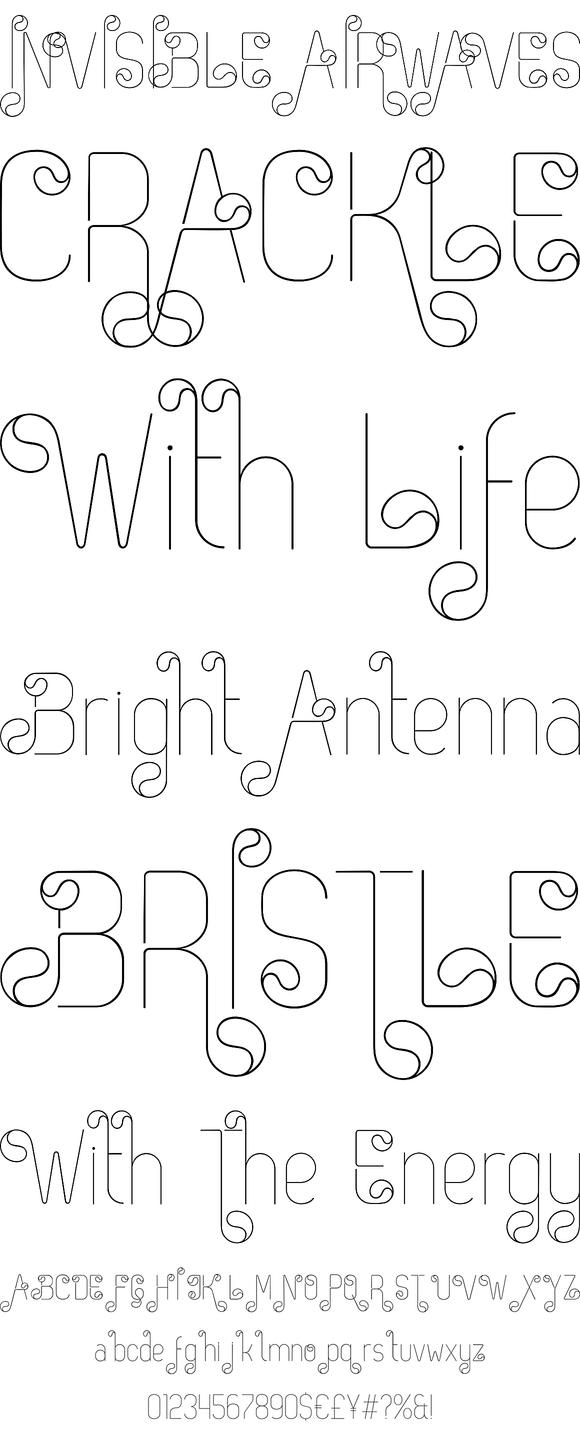
Zag is a geometric sans serif inspired by the new contemporary stuff and that bring us unusual ornamental feeling. Compressed capitals, a high x-height and geometric construction give this art deco inspired sans a unique look that looks to the past for inspiration, but is a new contemporary design usable in a wide range of graphic settings.